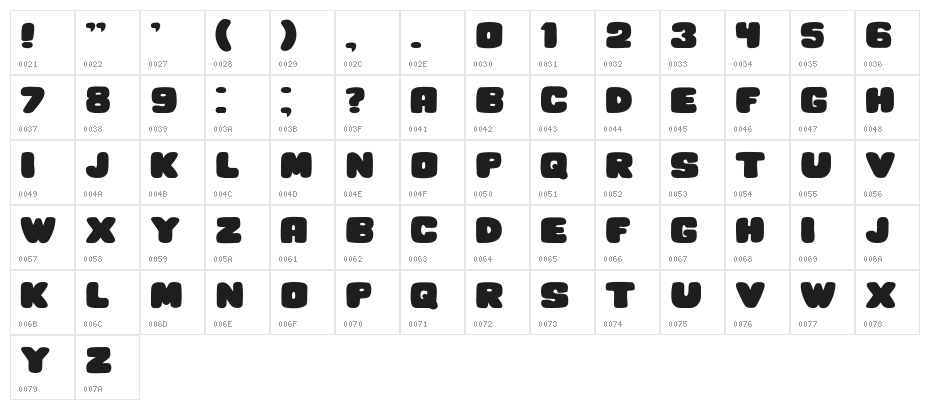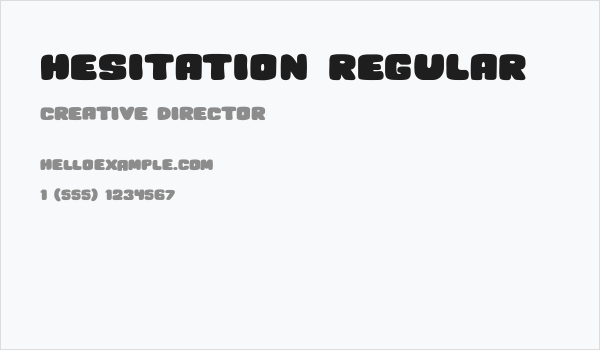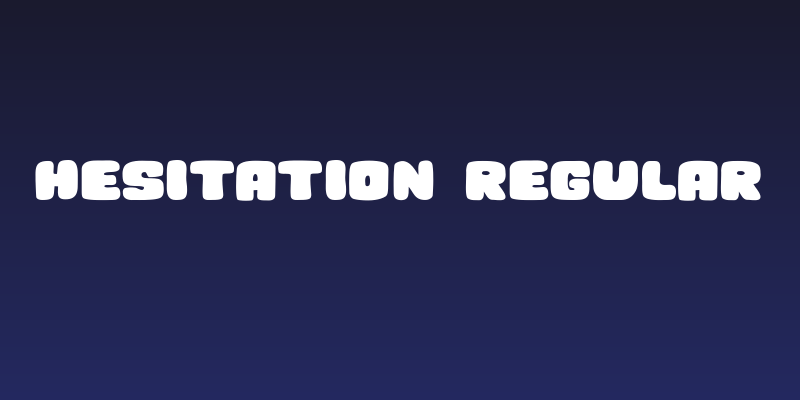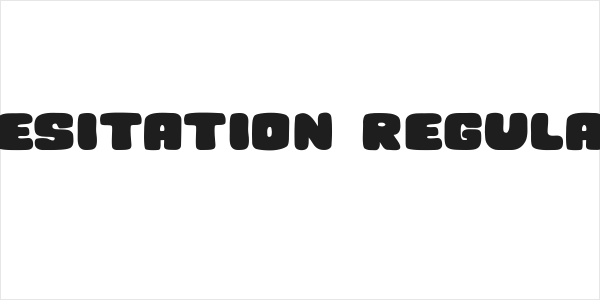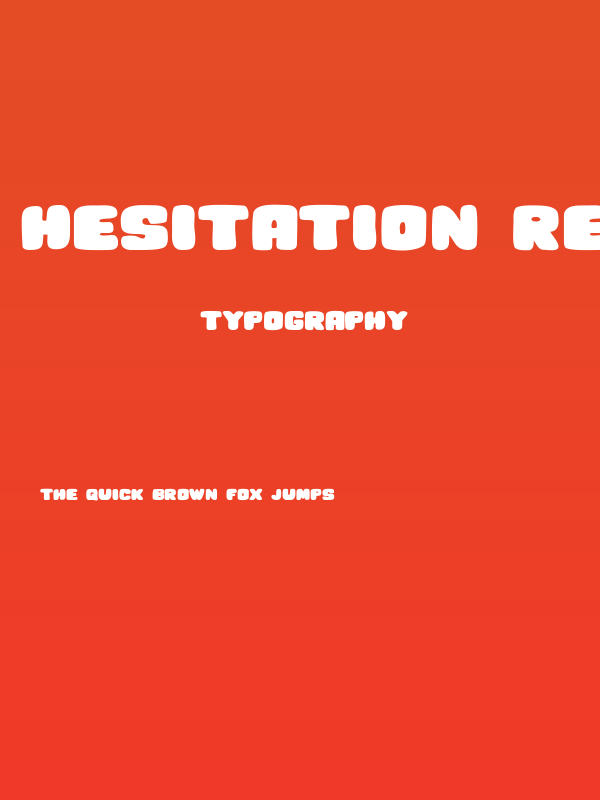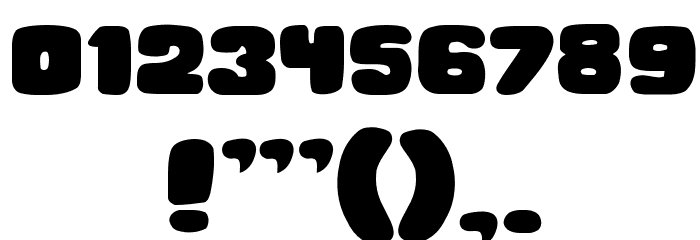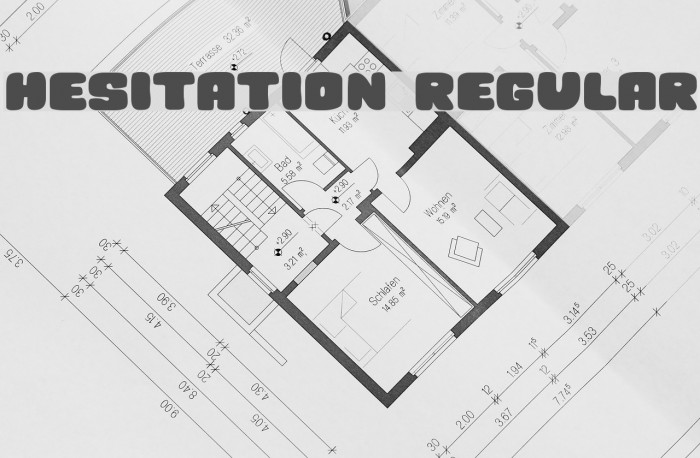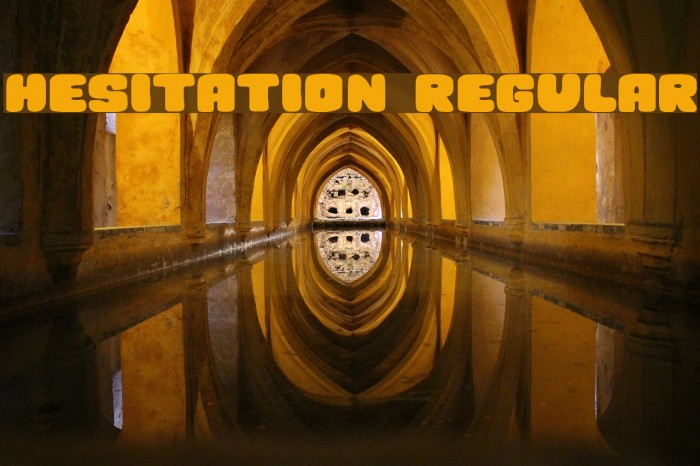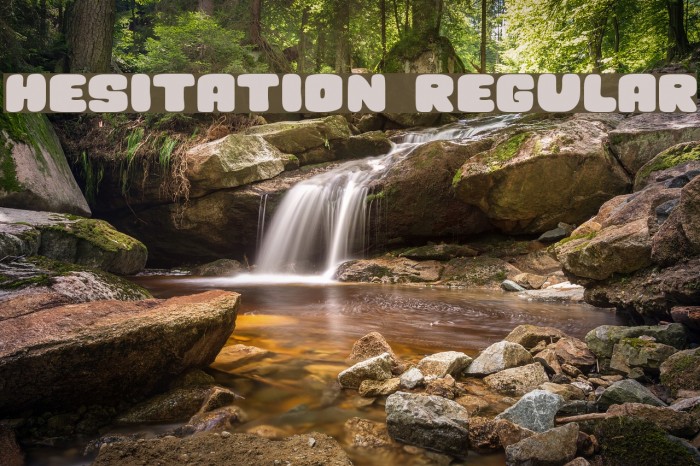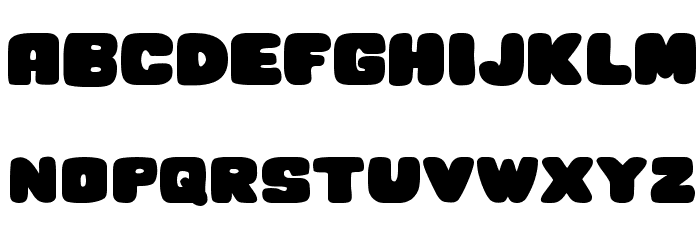
Hesitation Regular Font
Hesitation Regular Description
This font features bold, rounded characters with a playful and friendly appearance. The letters are thick and have a soft, bubble-like quality, making them stand out with a strong visual presence. The uniformity in stroke width gives it a cohesive look, while the rounded edges add a touch of warmth and approachability. The font is highly legible and maintains clarity even at smaller sizes, making it versatile for various design applications. Its distinct style is suitable for projects that require a fun and engaging typeface.
| Proposed Projects | Ideal for children's books, playful branding, posters, and social media graphics. |